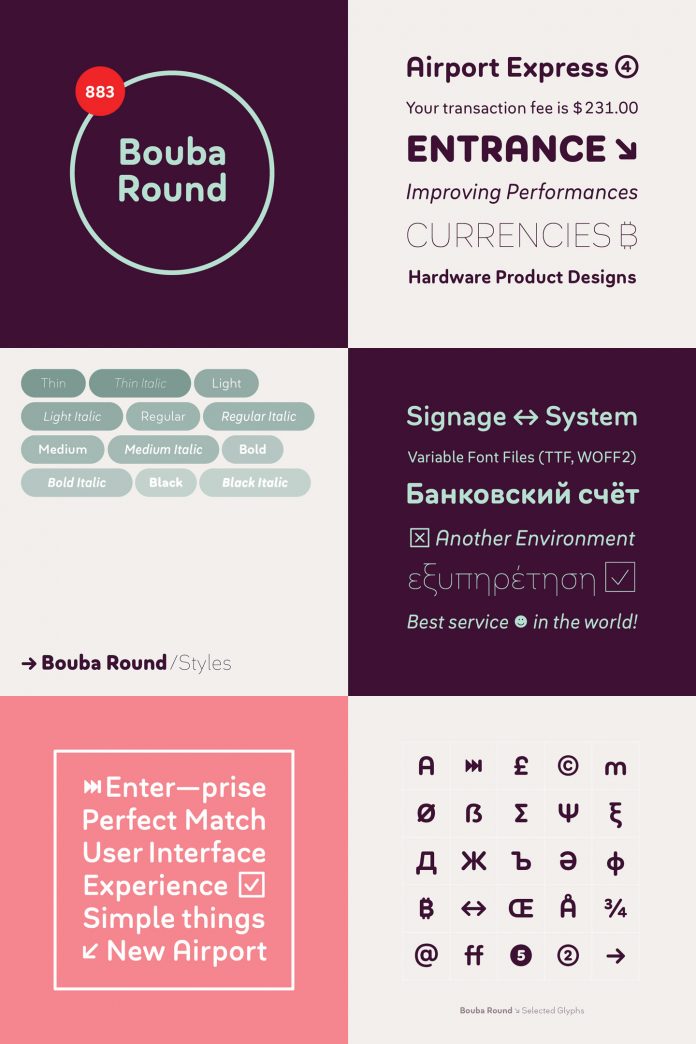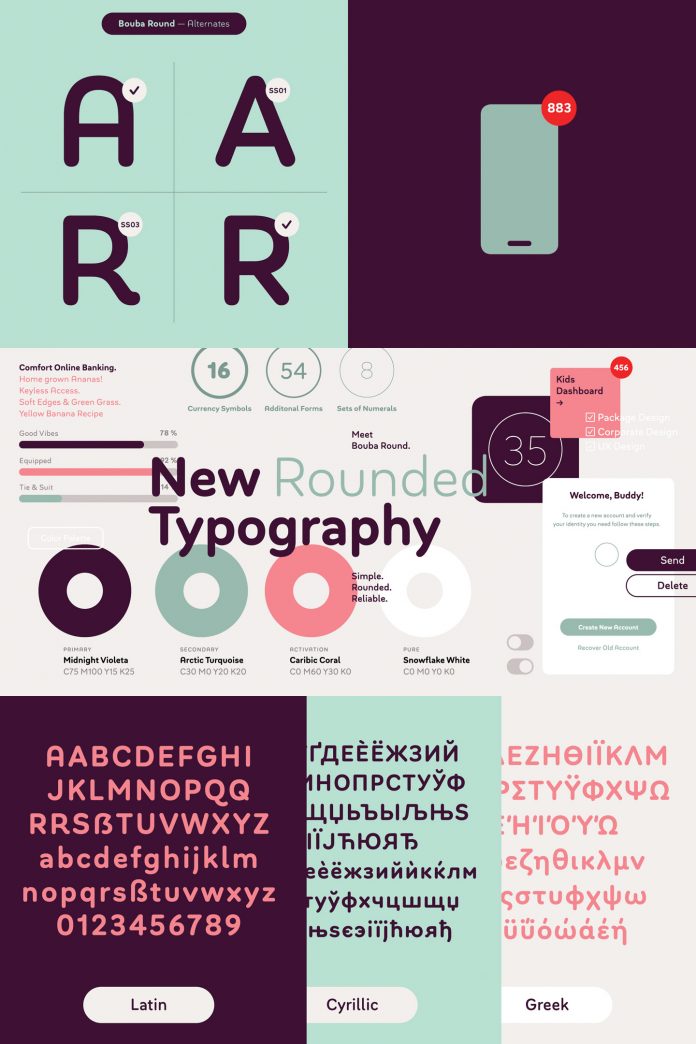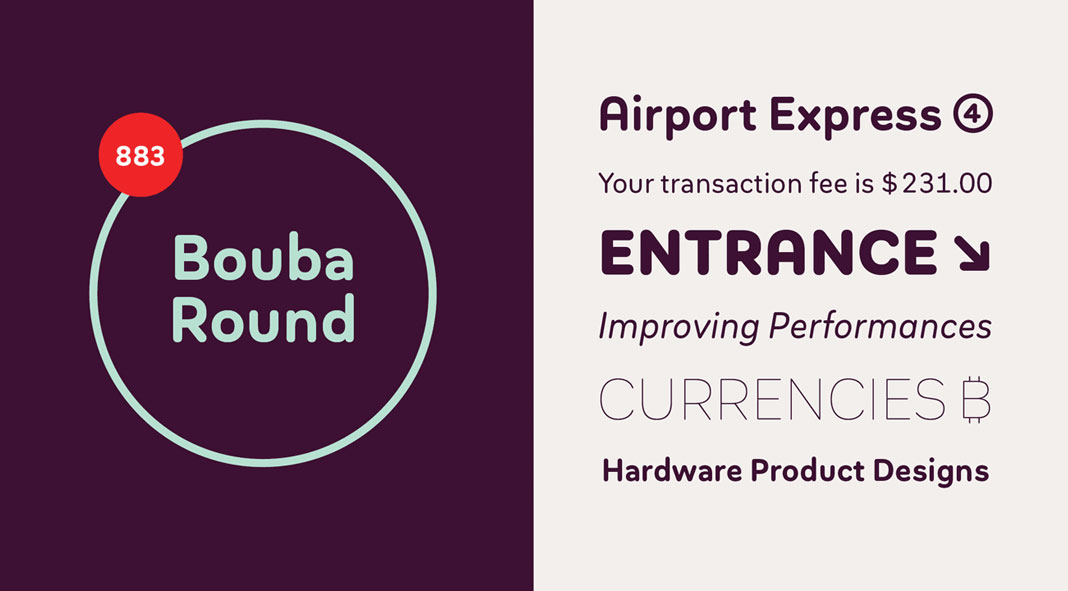
Bouba Round, an expressive yet round and friendly font family published by German type foundry HVD Fonts.
Hannes von Döhren, a German typeface designer and founder of foundry HVD Fonts just released Bouba Round, an expressive type family that is characterized by its round and friendly shapes. With its great readability, the font family is a true workhorse. Whether for small sizes or long text as well as in headlines, you can use it for plenty of typographic applications. Bouba Round supports multiple languages including nearly all Latin-based languages as well as Greek and Cyrillic alphabets. The family has been equipped with plenty of useful icons, arrows, and graphics for modern UI/UX design. Bouba Round will also be distributed in the variable font format with every complete family purchase. This way, you have full control of all weights and interpolate intermediate styles.